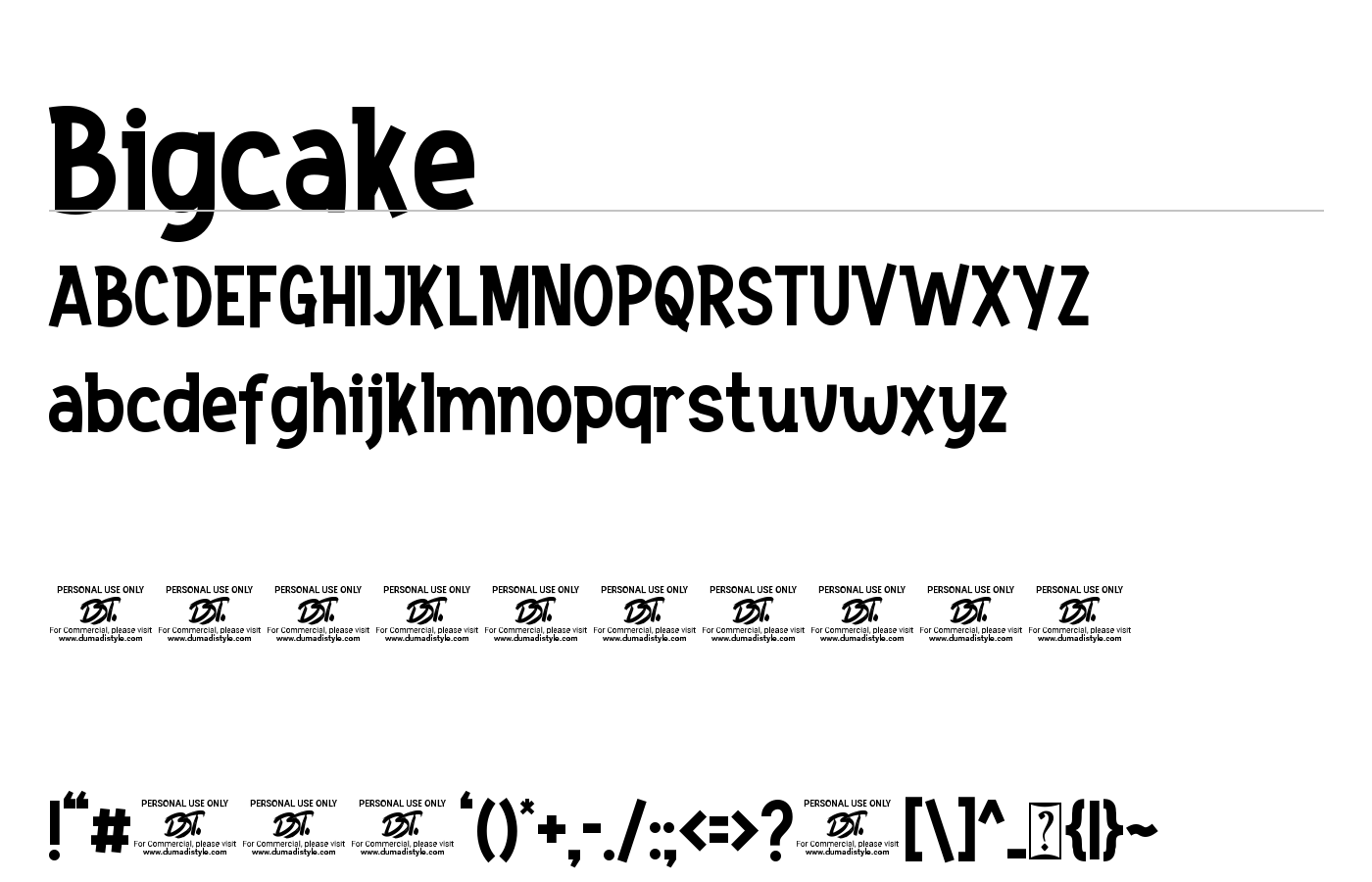
Bigcake Font is a bold, playful sans serif typeface with quirky, uneven strokes that give it a fun, informal vibe. Its tall x-height and irregular letter shapes make it highly distinctive and eye-catching, perfect for projects that want to convey creativity and approachability. This font works best for headlines, logos, posters, and branding in youthful or casual contexts where a lively and unique personality is desired.
Bigcake Font
About Bigcake Font
| Font family | Bigcake Font |
| Designer | Toni Dzulham |